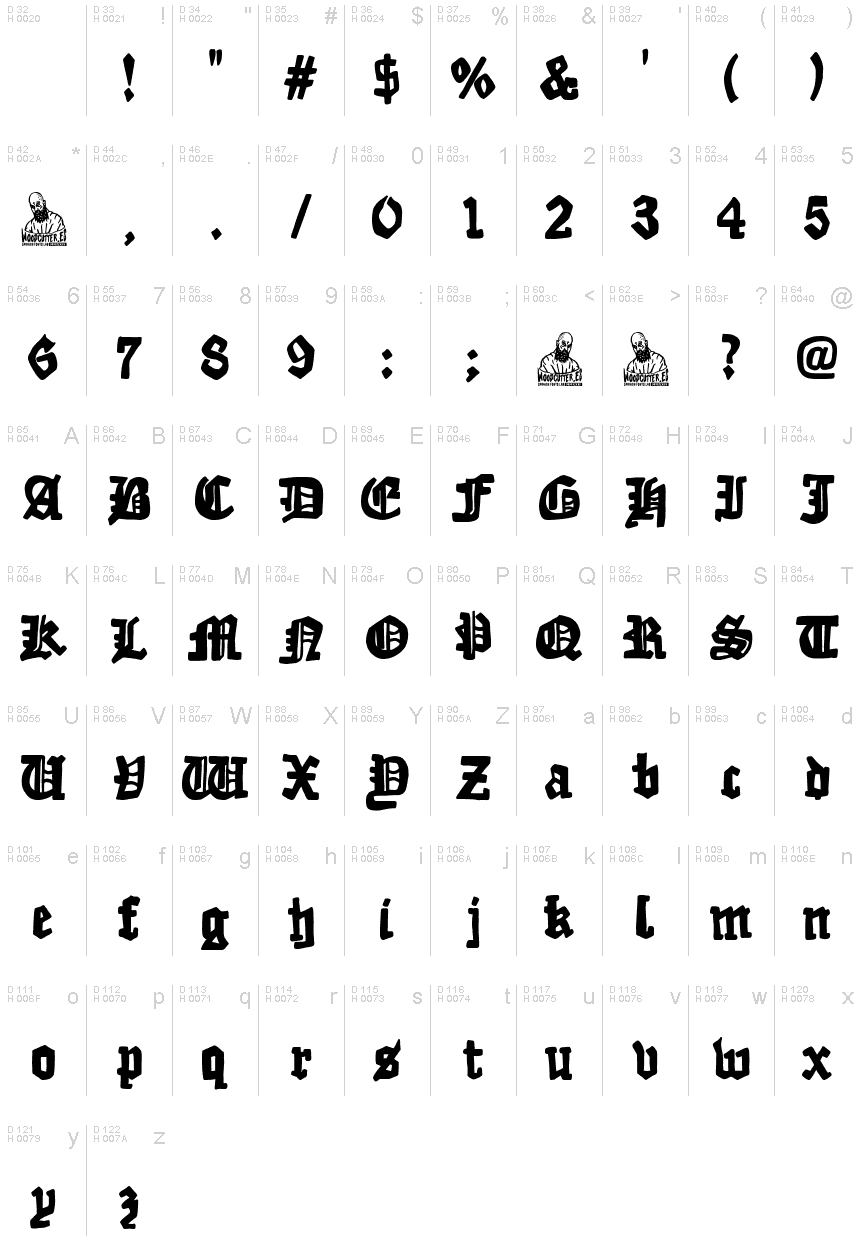
Tropper of the Beast
Tropper of the Beast, crafted by Woodcutter, is a bold gothic font that exudes an air of mystery and power. With its sharp, angular letterforms and robust stroke weight, this font commands attention and adds a touch of darkness to any project.
Perfect for album covers, book titles, or Halloween-themed designs, Tropper of the Beast will transport your audience to a world of shadows and enchantment. Its bold presence makes it ideal for posters or branding materials that require a strong visual impact.
Unleash the beast with Tropper of the Beast!